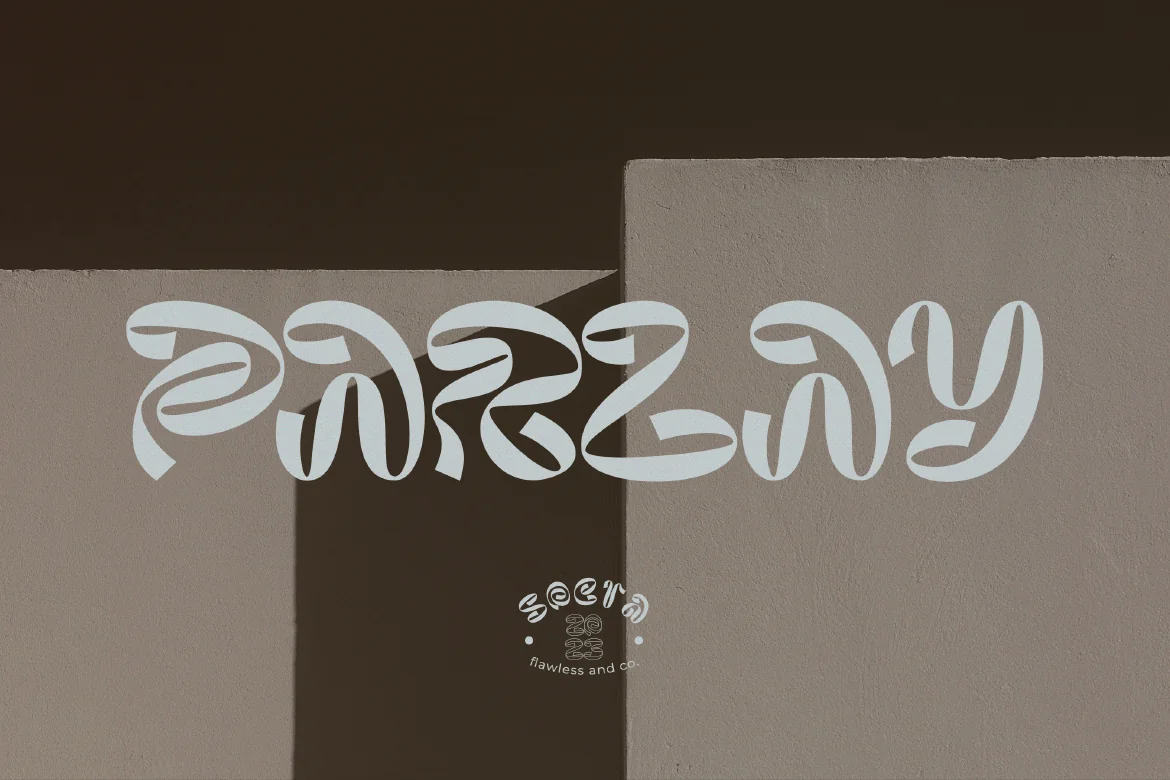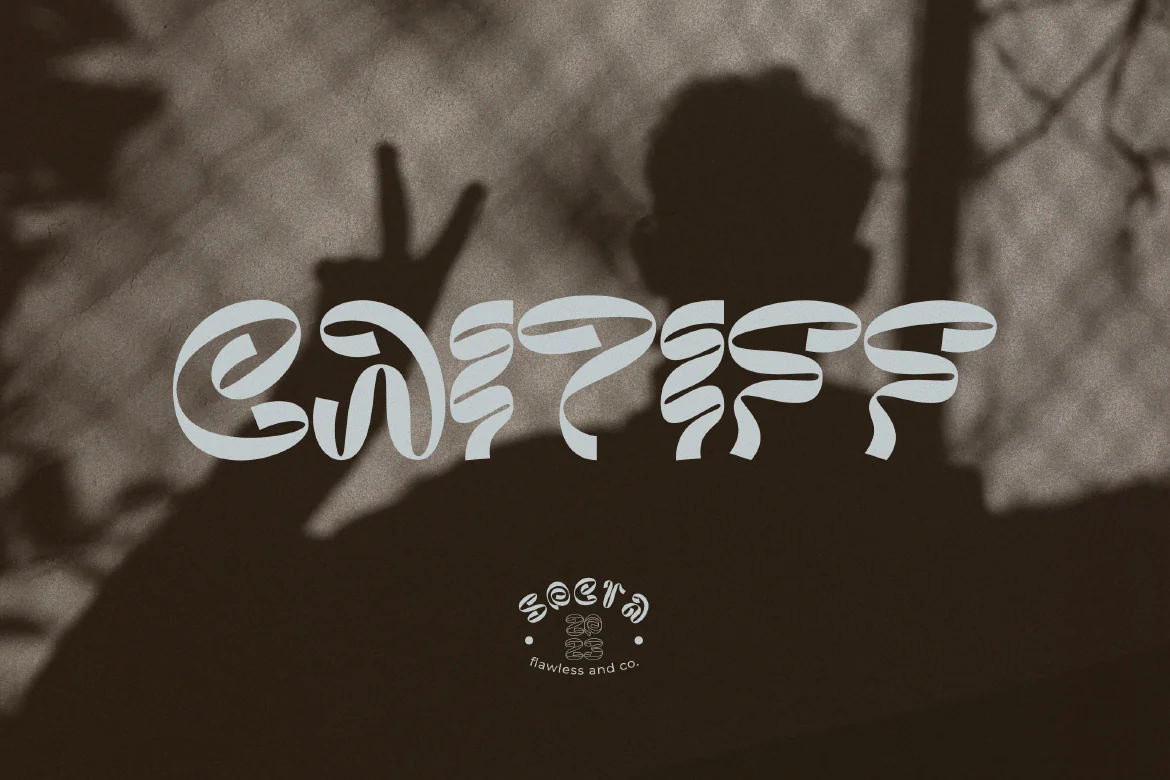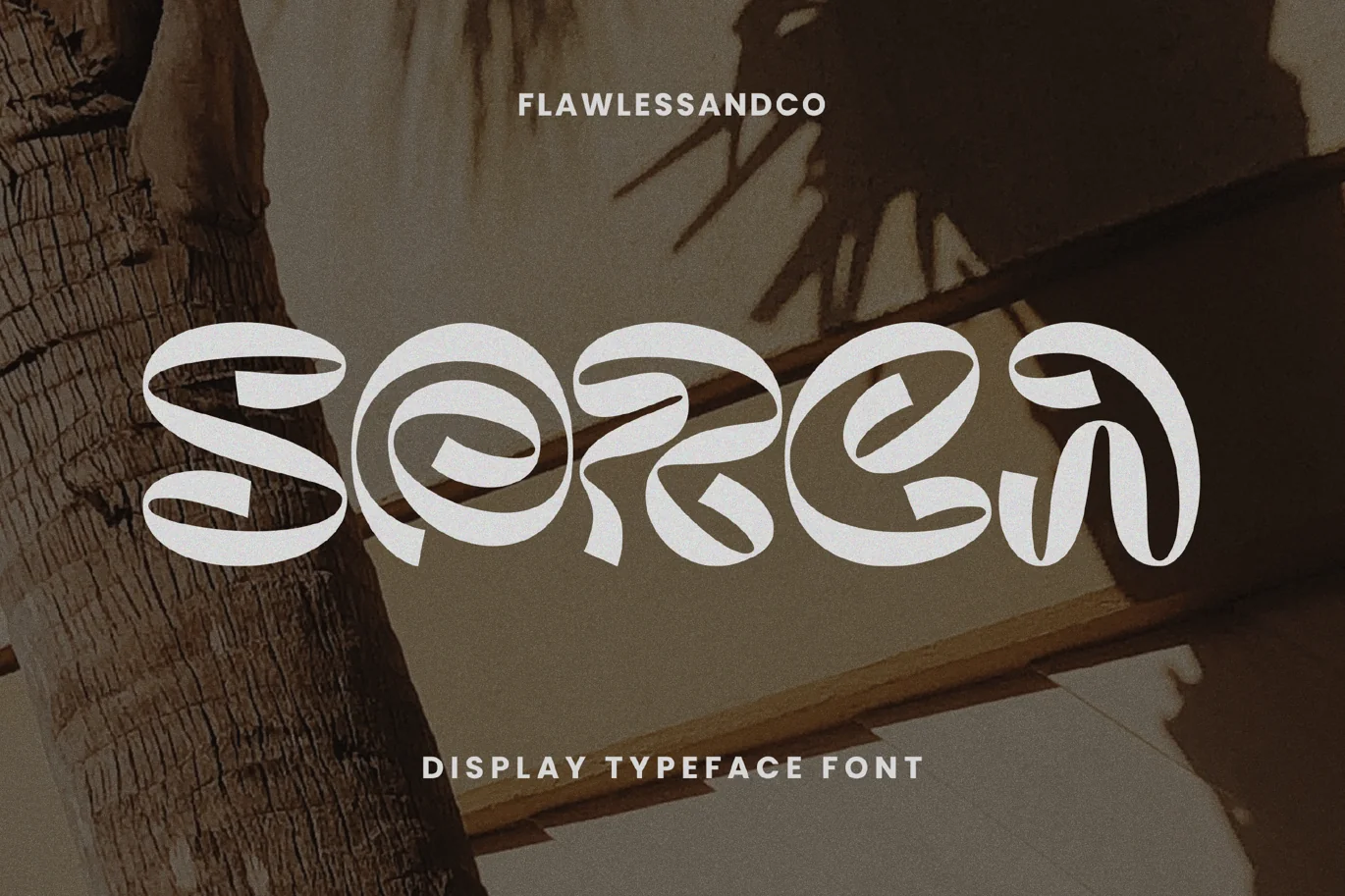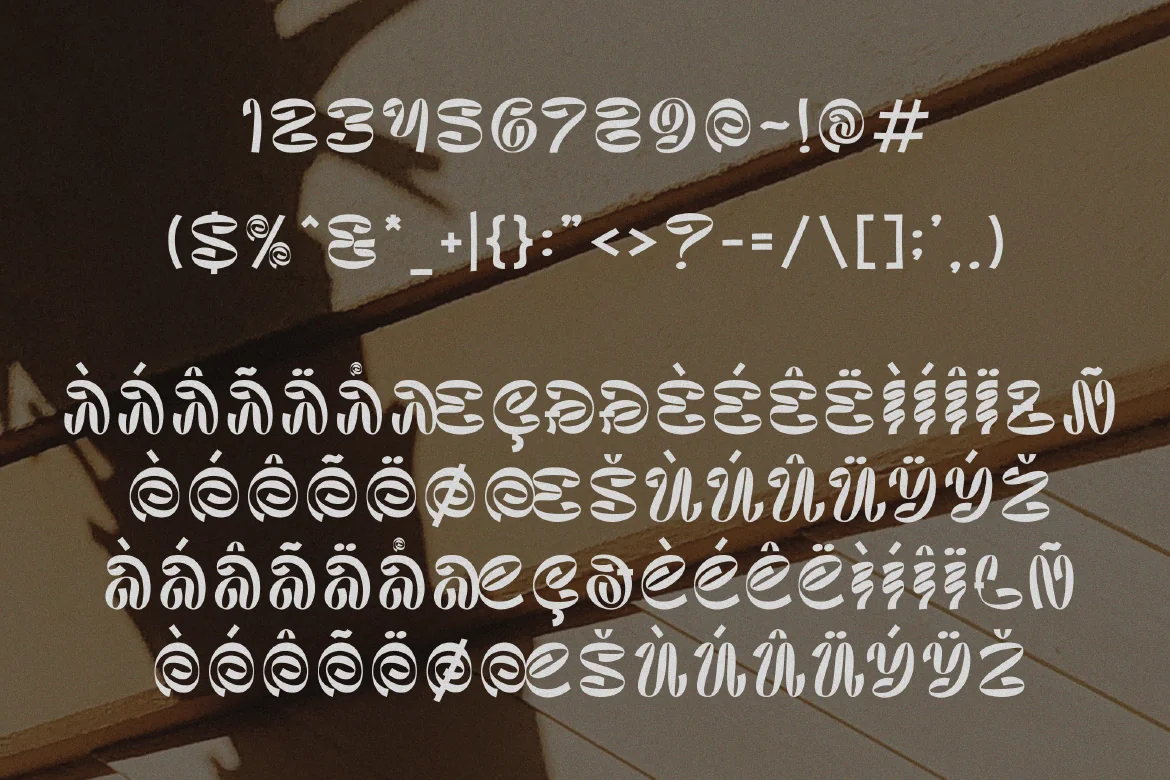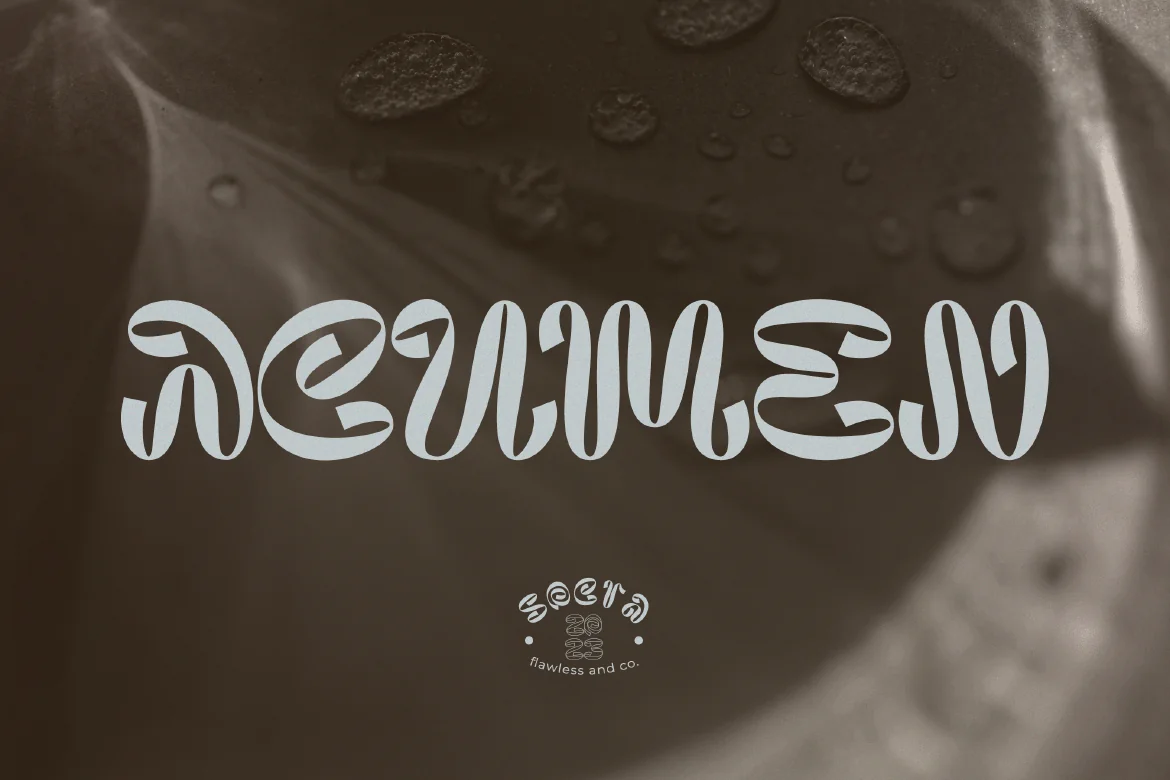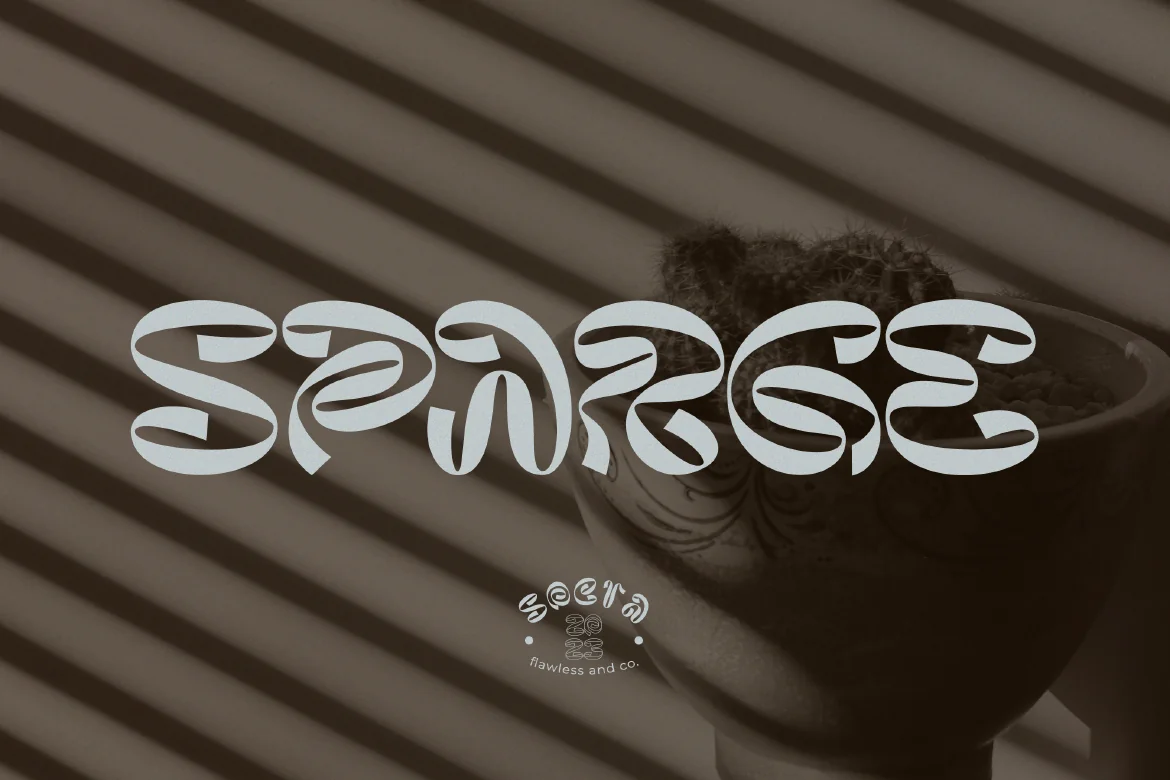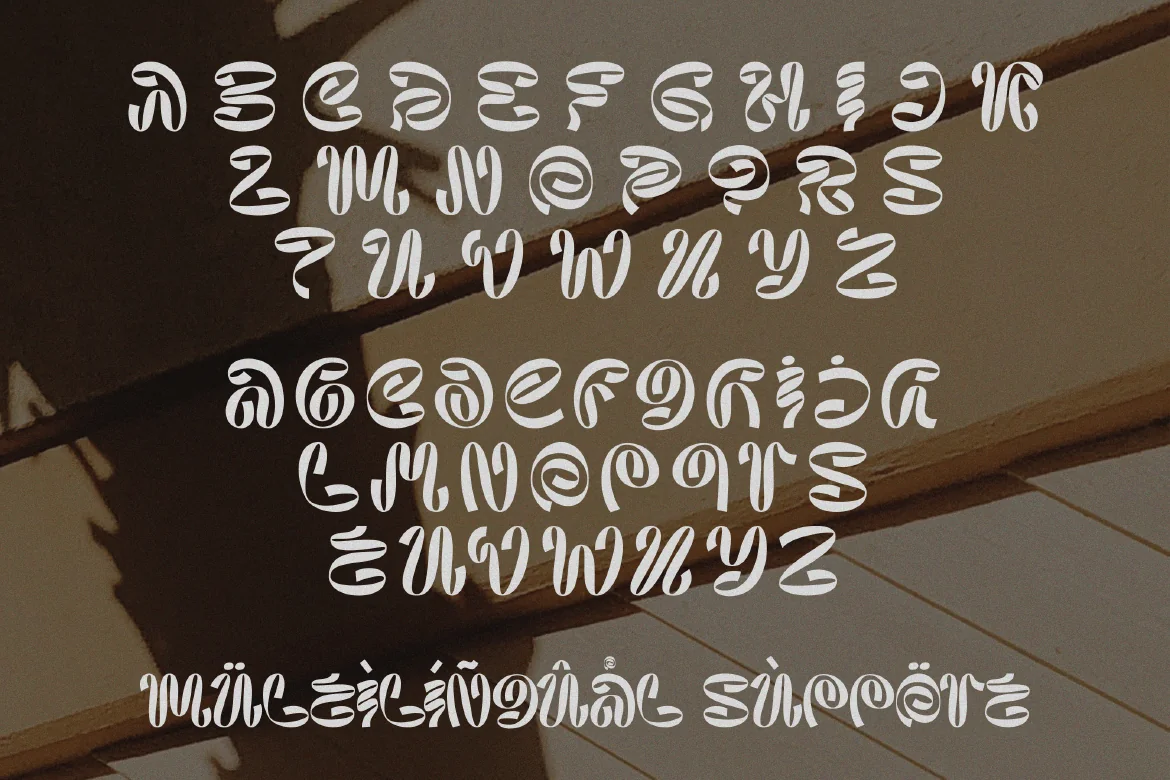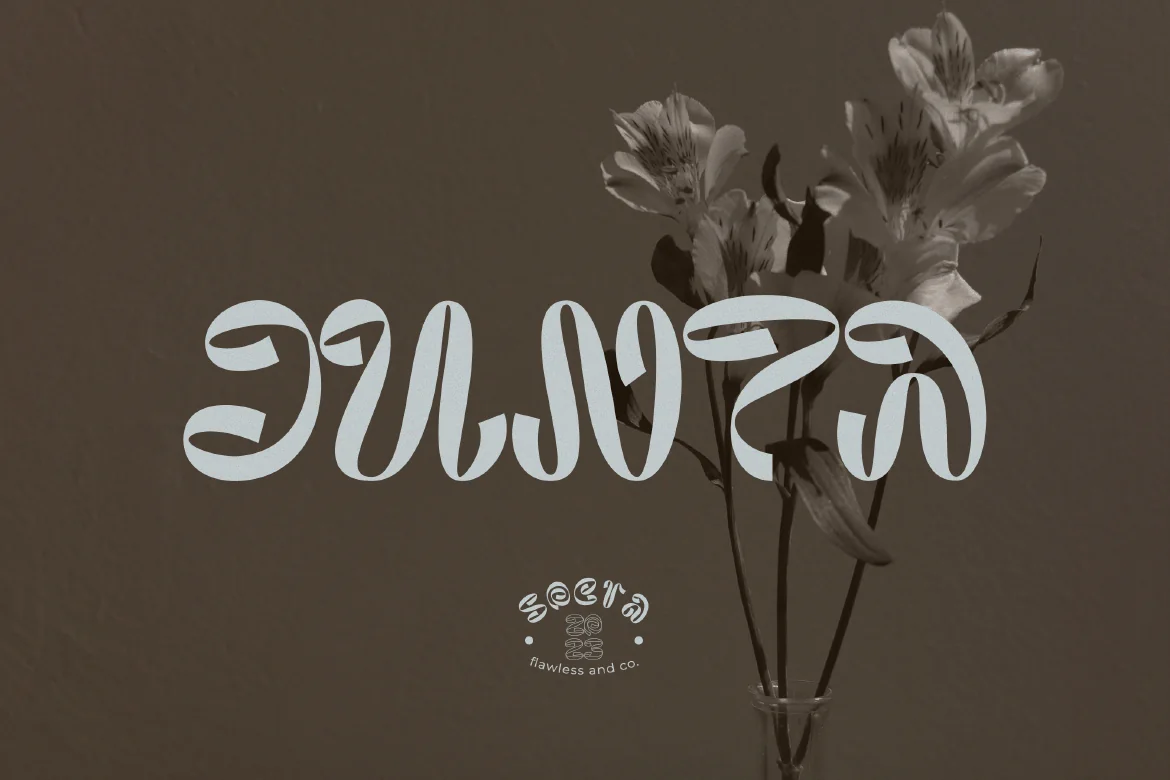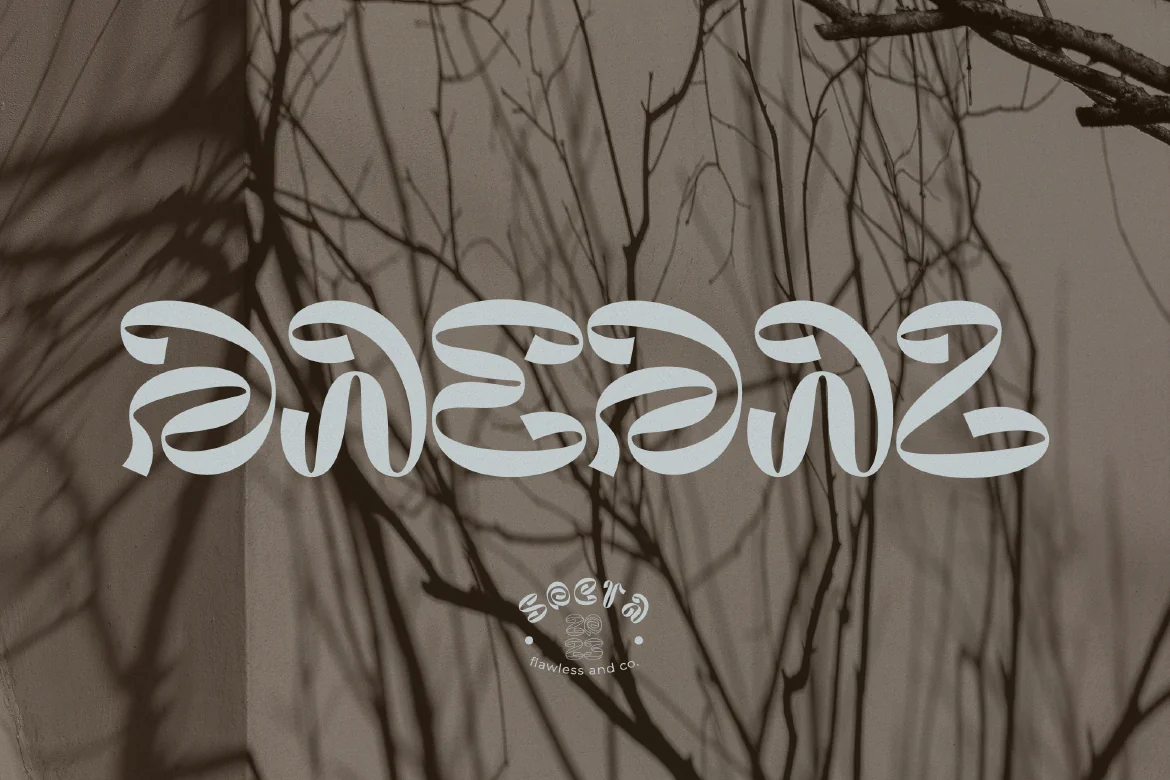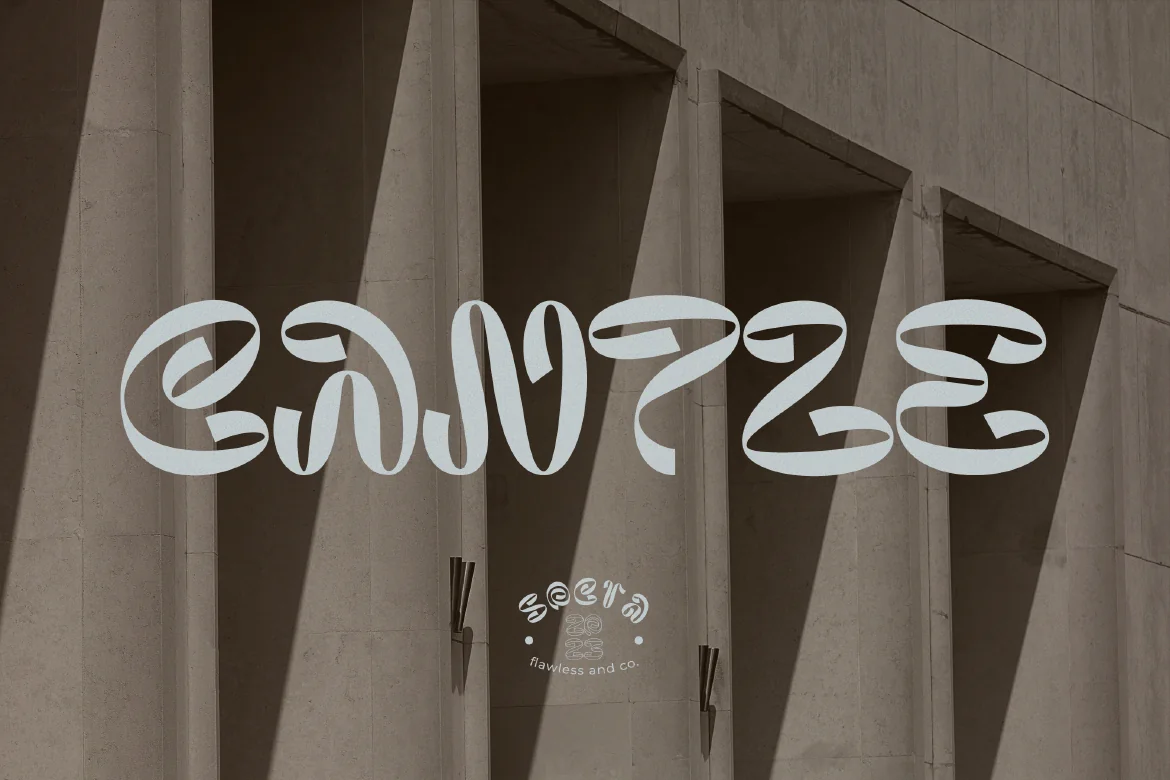
Sorca Display Typeface Font
Introducing “Sorca” – A Display Typeface Font, a captivating display typeface font that is adorned with wavy and distinctive letter details. With its artistic letterforms and unparalleled style, “Sorca” is designed to be the focal point of your design, evoking a sense of creative elegance and originality. This font is suitable for any graphic design, such as branding materials, posters, photography, etc.
Alternate Character